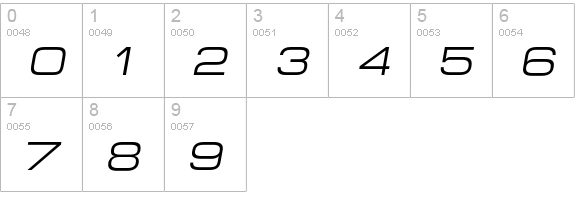
EuropeExt Italic Font Details
EuropeExt Italic is a distinctive, italic variant in the EuropeExt typeface family \xE2\x80\x94 well suited to design and typography projects.
EuropeExt Italic is a sleek and modern font that effortlessly combines elegance with readability. With its stylish slanted design, this typeface adds a touch of sophistication to any project. Whether you're creating a logo, designing a website, or working on a print project, EuropeExt Italic is sure to make a statement. The best part? EuropeExt Italic is completely free to download at FontsMarket.com. So you can elevate your designs without breaking the bank. Don't miss out on this versatile and eye-catching font that will take your creations to the next level. Download EuropeExt Italic today and unleash your creativity!